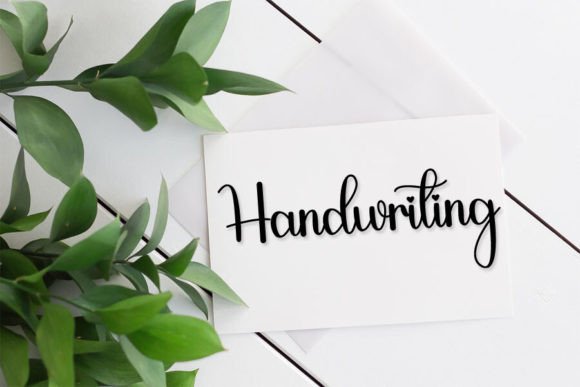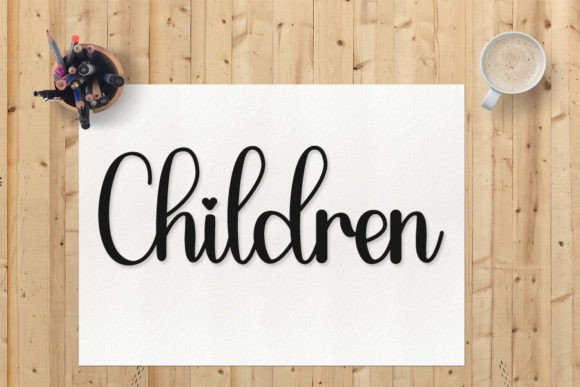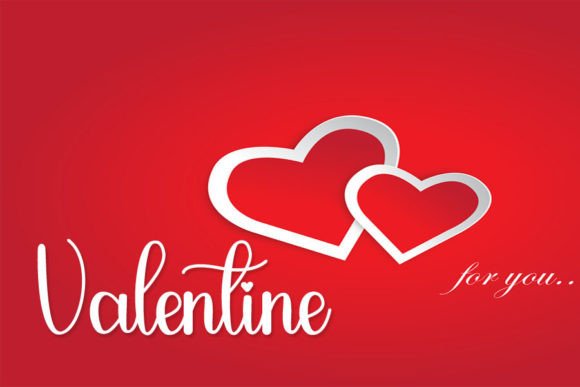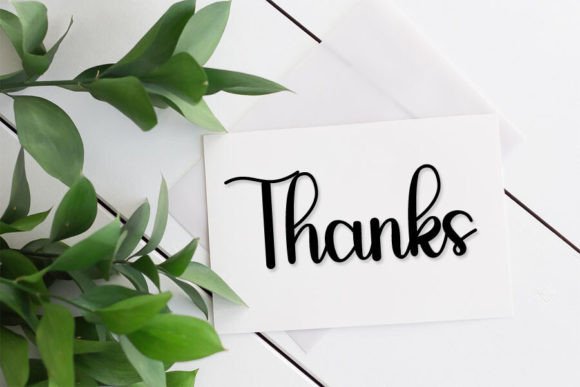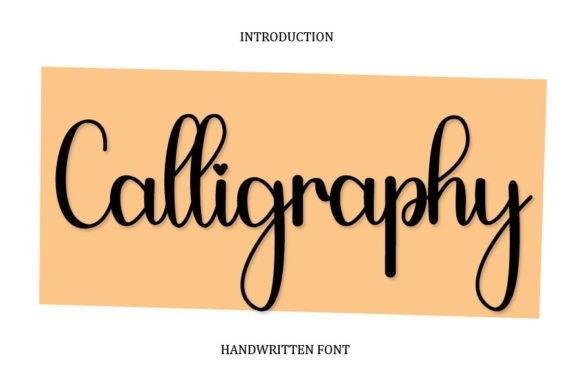
Elevate Your Designs with the Timeless Elegance of Calligraphy Fonts
In the world of typography, few styles evoke the same level of sophistication and refinement as calligraphy. This ancient art form, which involves creating beautiful, flowing script with a pen or brush, has been a cornerstone of elegant design for centuries. With the resurgence of interest in classic calligraphy, modern designers are now spoiled for choice when it comes to selecting the perfect calligraphy font for their projects. One such font that stands out from the rest is the Calligraphy Font – a trendy, handwritten font that brings a contemporary atmosphere and impeccable form to any design.
The Essence of Calligraphy
Calligraphy, by its very nature, is an art form that exudes elegance and refinement. The fluid strokes, the precision, and the attention to detail all come together to create a sense of luxury and sophistication. When translated into a digital font, these qualities are preserved, allowing designers to infuse their work with a touch of classic elegance. The Calligraphy Font takes this timeless appeal and updates it with a modern twist, making it perfect for designers looking to add a touch of sophistication to their projects.
What Makes Calligraphy Font Stand Out
So, what sets the Calligraphy Font apart from other calligraphy fonts on the market? Here are a few key features that make it a standout choice:
- Contemporary Atmosphere: While traditional calligraphy is undeniably elegant, it can sometimes feel a little stuffy or old-fashioned. The Calligraphy Font updates this classic style with a modern, fresh feel that’s perfect for designers looking to create something new and exciting.
- Impeccable Form: One of the hallmarks of great calligraphy is its precision and attention to detail. The Calligraphy Font takes this to heart, with beautifully crafted letters that are meticulously designed to create a sense of harmony and balance.
- Elegance and Class: Let’s face it – calligraphy is all about elegance and refinement. The Calligraphy Font embodies these qualities, making it the perfect choice for designers looking to add a touch of sophistication to their projects.
Using Calligraphy Font in Your Design Projects
So, how can you use the Calligraphy Font to elevate your design projects? Here are a few ideas to get you started:
- Wedding Invitations: Calligraphy is a classic choice for wedding invitations, and the Calligraphy Font is no exception. Use it to create beautiful, bespoke invitations that set the tone for a luxurious and sophisticated wedding.
- Branding and Packaging: Add a touch of elegance to your brand with the Calligraphy Font. Perfect for luxury brands, high-end products, or premium services, this font is sure to make your brand stand out.
- Graphic Design: From posters and flyers to brochures and business cards, the Calligraphy Font is a versatile choice that can be used in a wide range of graphic design projects.
Tips for Working with Calligraphy Fonts
While the Calligraphy Font is undoubtedly a beautiful and elegant choice, working with calligraphy fonts can sometimes be a little tricky. Here are a few tips to help you get the most out of this stunning font:
- Keep it Simple: Calligraphy fonts can be intricate and ornate, so it’s essential to keep your design simple and uncluttered. Avoid overcrowding your design with too much text or too many graphics.
- Experiment with Colors: Calligraphy fonts look beautiful in a range of colors, from classic black and white to rich jewel tones. Experiment with different colors to find the perfect combination for your design.
- Play with Pairings: Calligraphy fonts can be paired with a range of other fonts to create a unique and interesting effect. Experiment with different pairings to find the perfect combination for your design.
In conclusion, the Calligraphy Font is a stunning, elegant choice that’s perfect for designers looking to add a touch of sophistication to their projects. With its contemporary atmosphere, impeccable form, and timeless elegance, this font is sure to elevate your designs and leave a lasting impression. Whether you’re working on a wedding invitation, a branding project, or a graphic design piece, the Calligraphy Font is a versatile and beautiful choice that’s sure to impress.